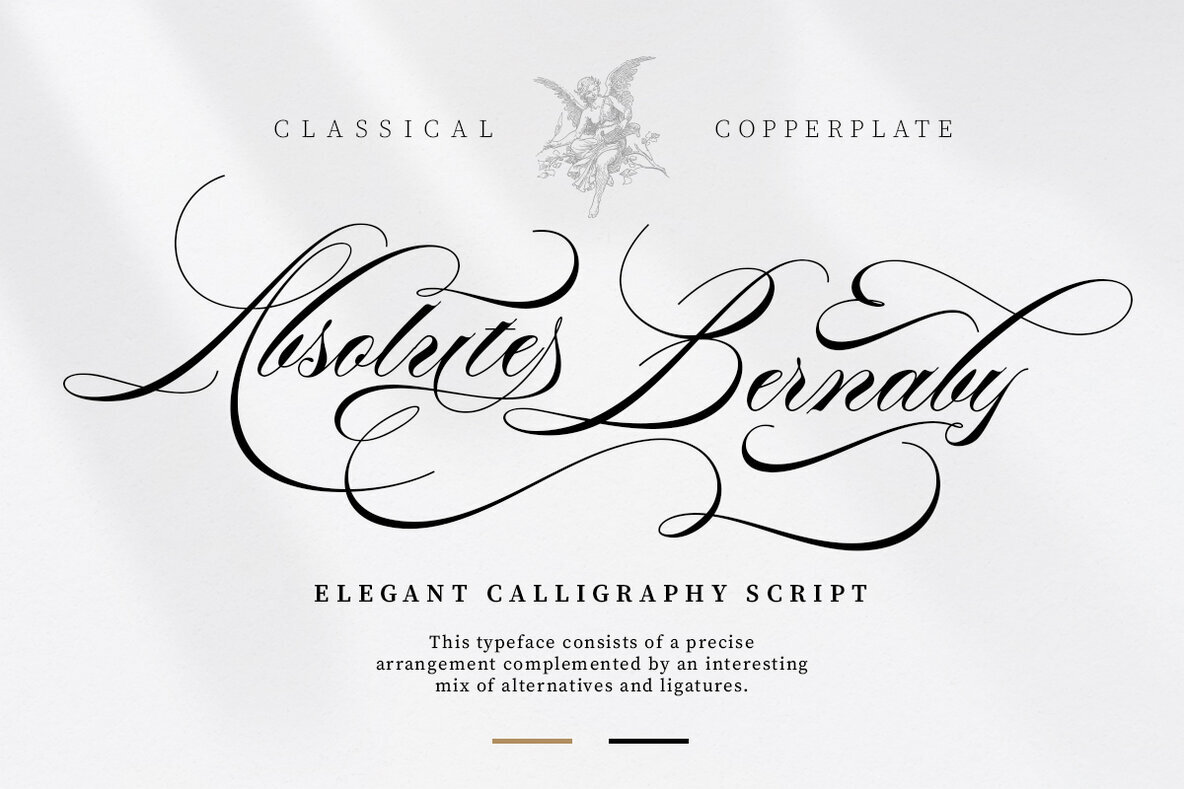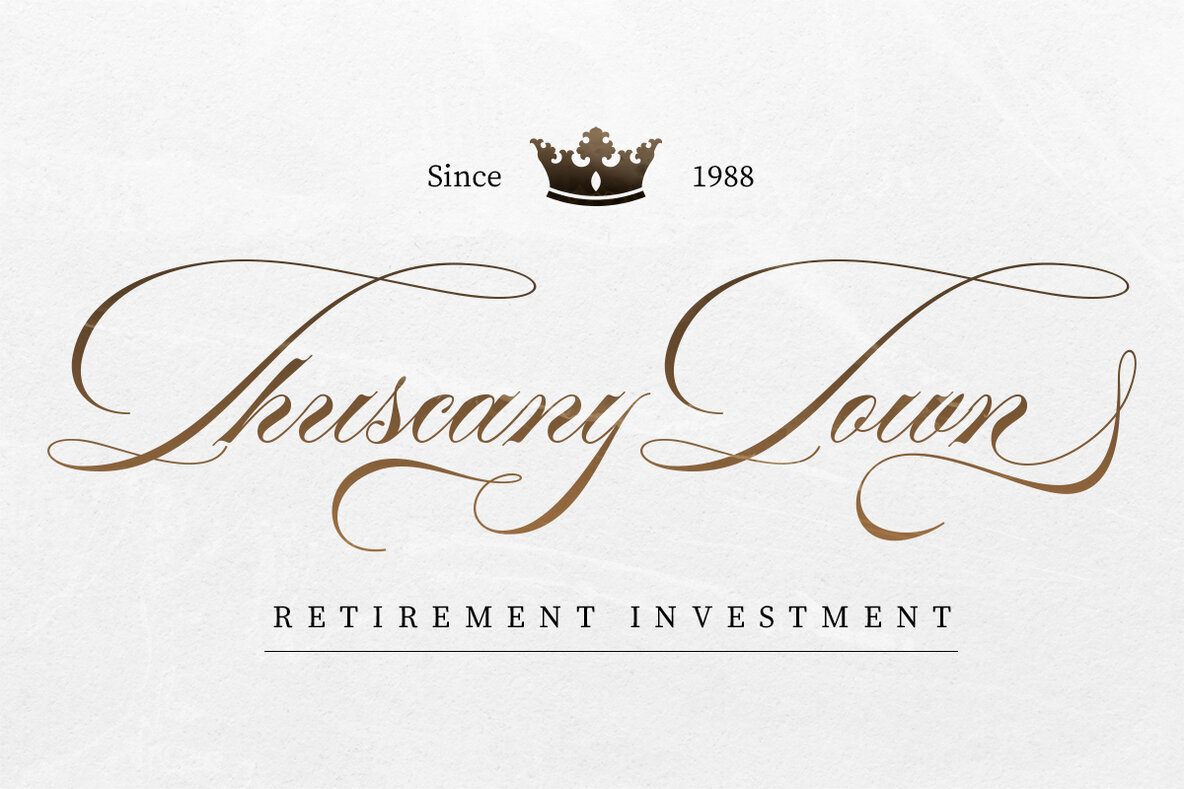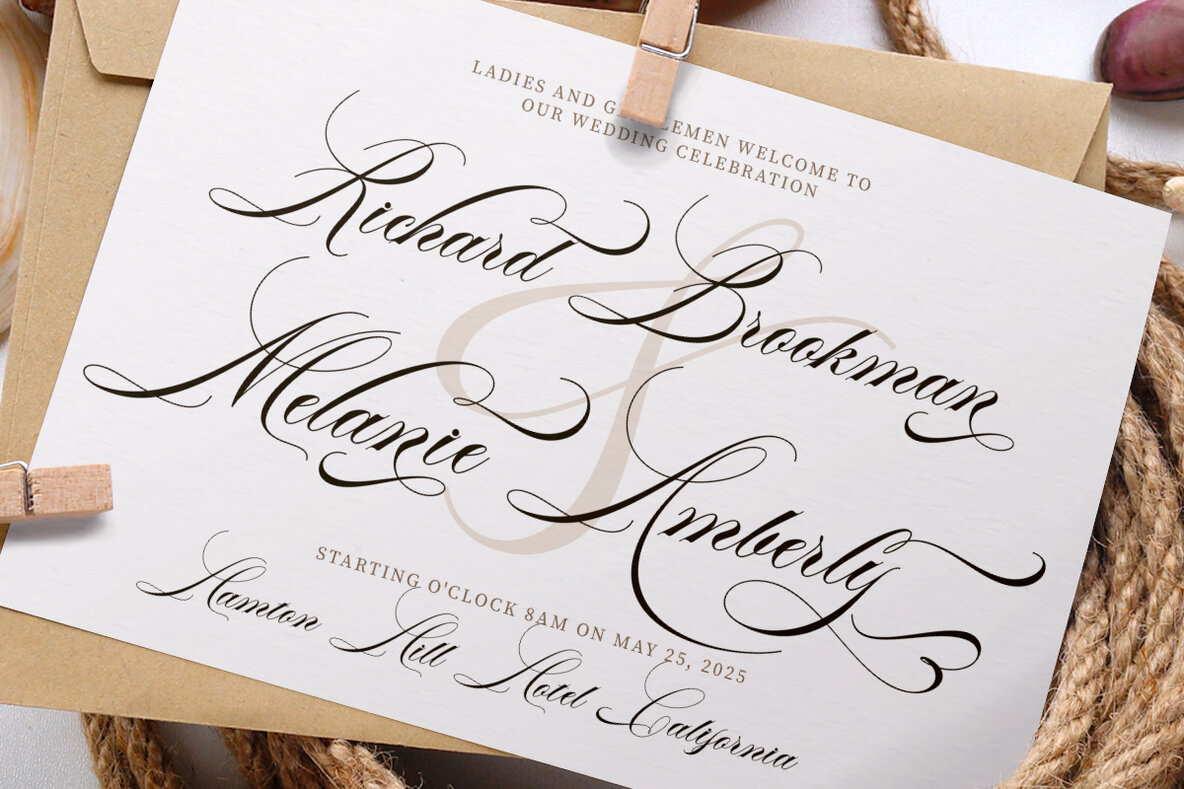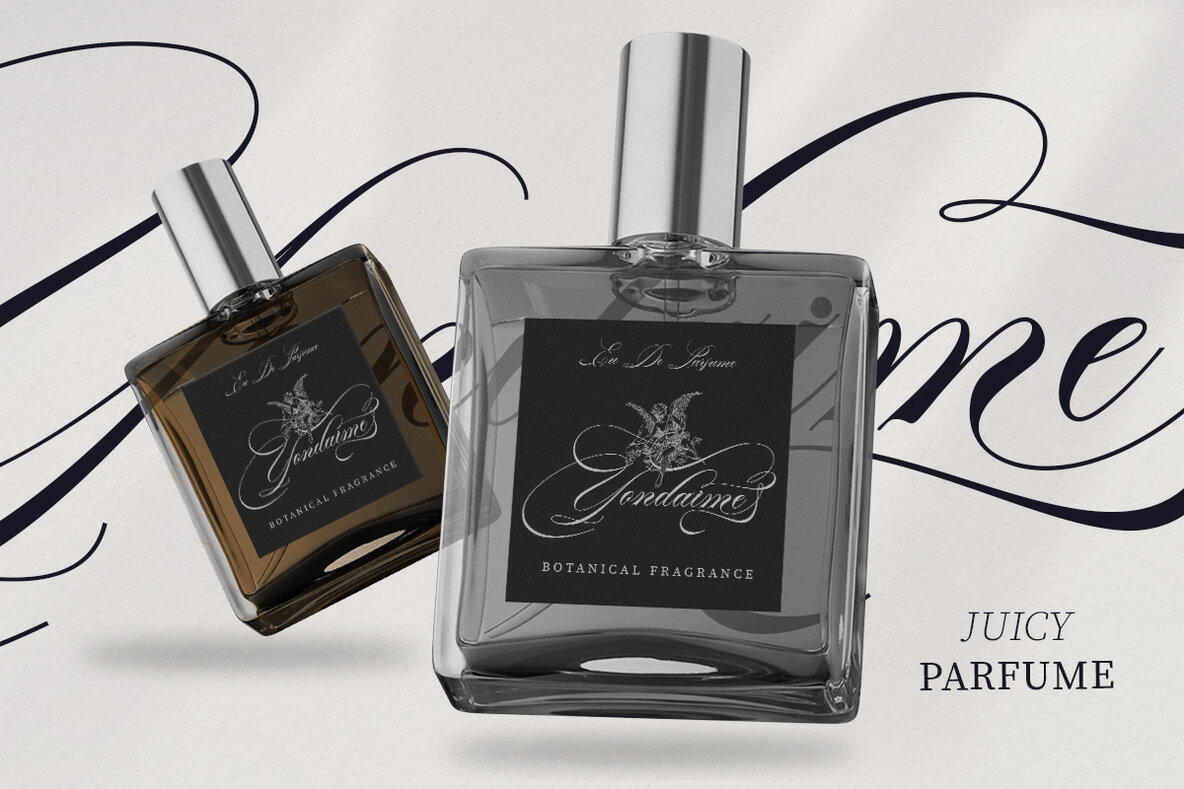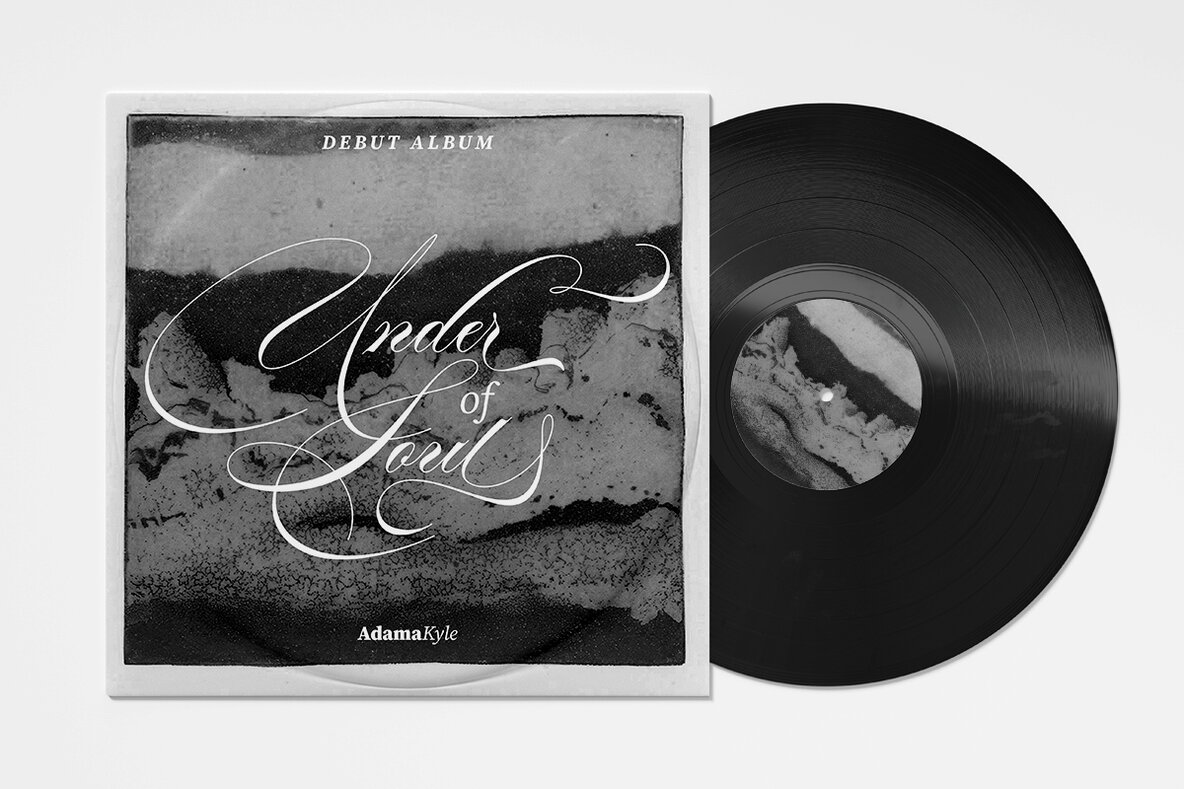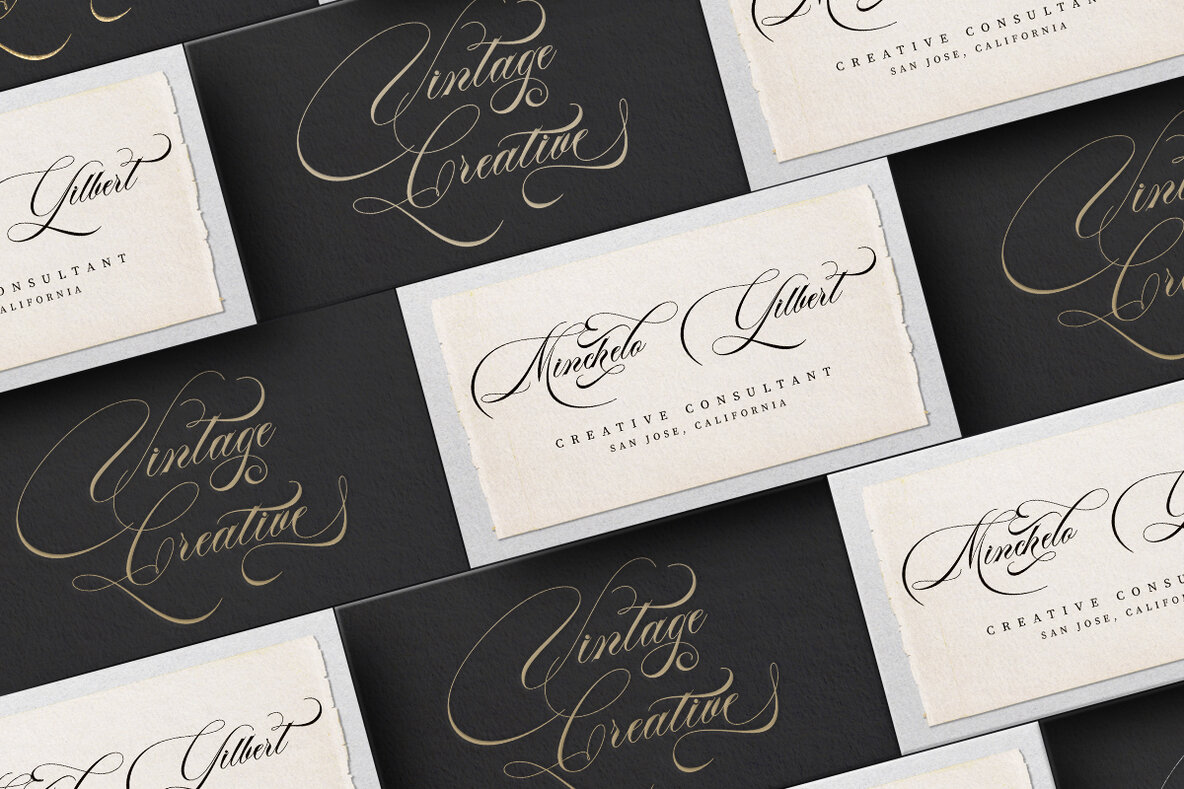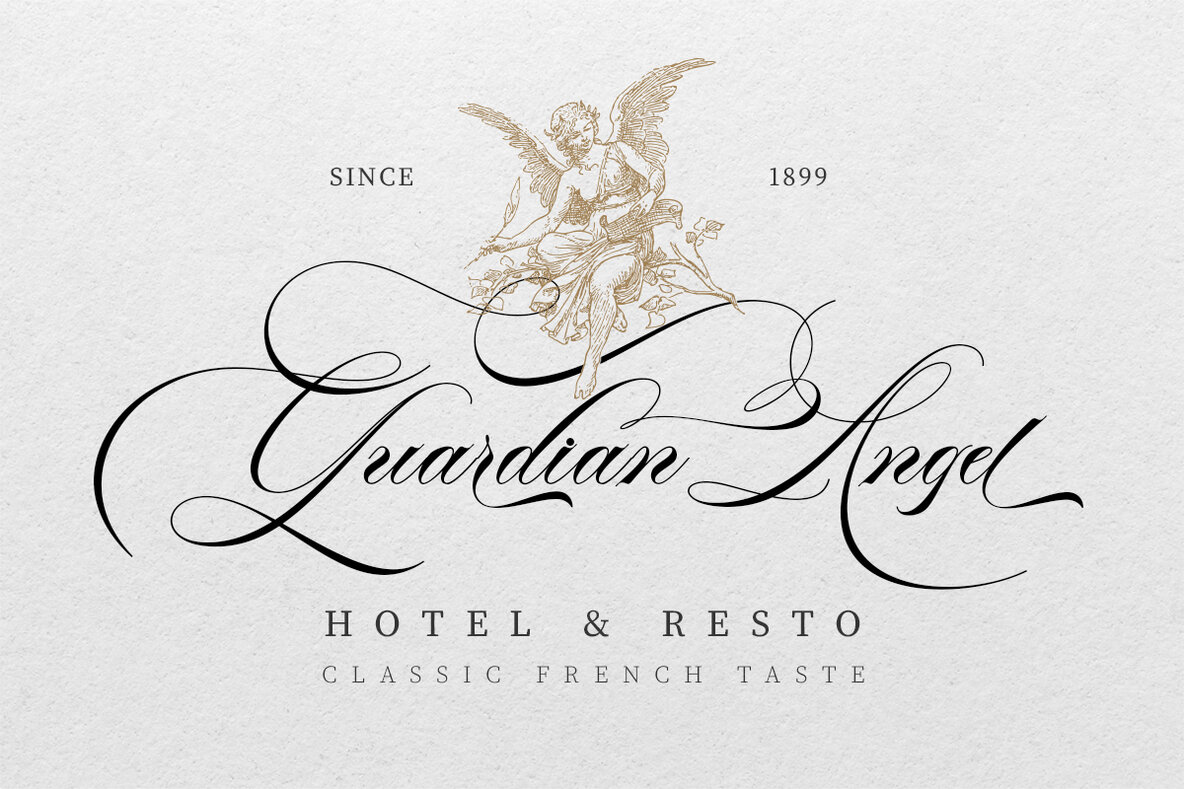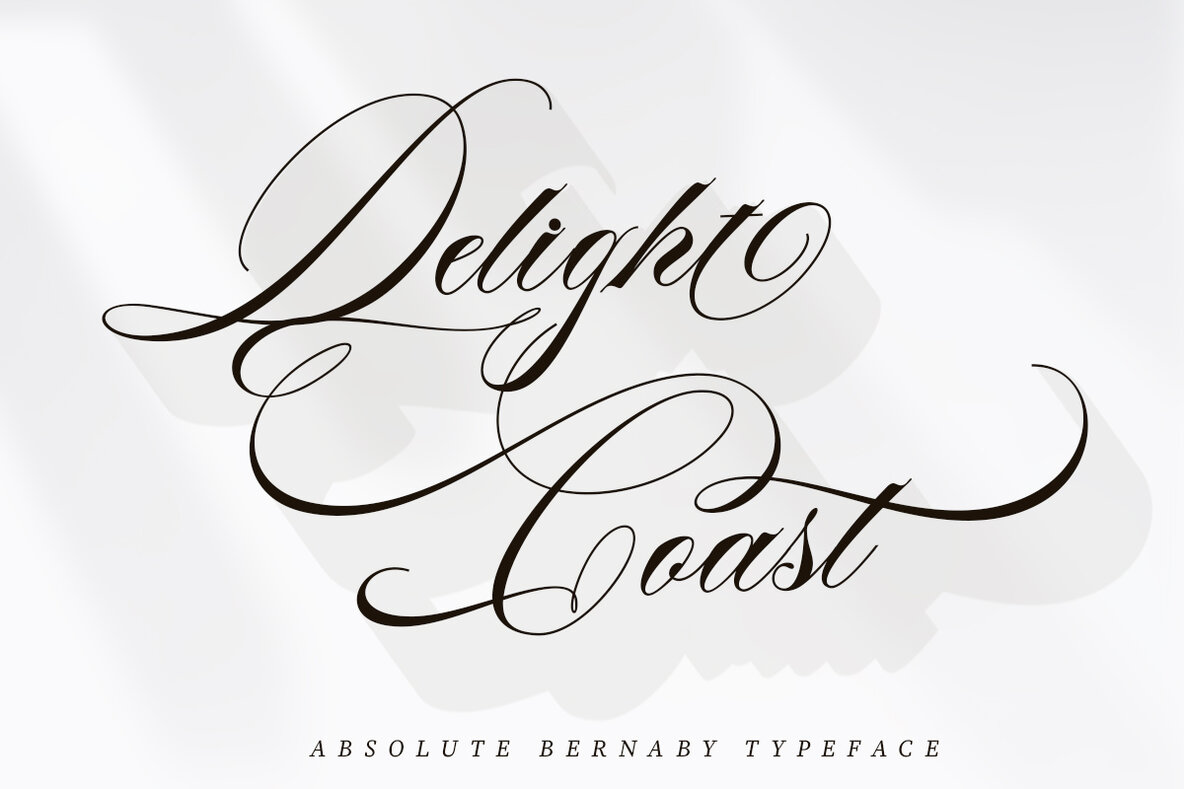
Absolute Bernaby Font
Absolute Bernaby Regular
Absolute Bernaby is a sophisticated typeface, seamlessly blending classic beauty with modern elegance. Each curve and stroke embodies luxury and finesse, crafted with an eye for refined artistry. Graceful letterforms with soft, flowing lines evoke the fluidity of handwritten script. Ideal for high-end design projects like wedding invitations, luxury branding, and fashion editorials, this font embodies a polished aesthetic. Absolute Bernaby includes stylistic alternates and custom ligatures, ensuring flexible and expressive typography. It offers endless possibilities for unique, personalized compositions.Absolute Bernaby: Refined Calligraphy Typeface